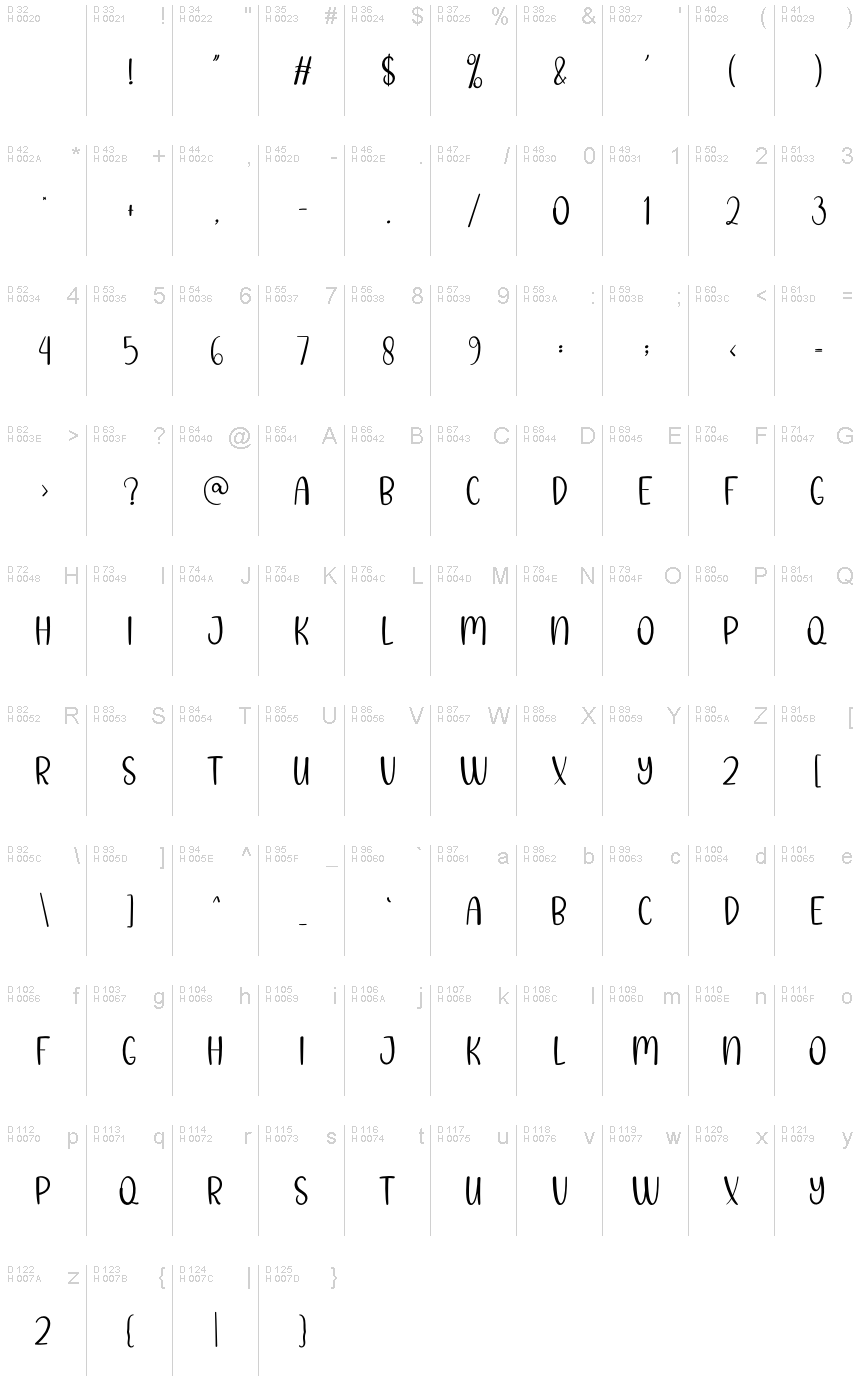
Palm Sugar
Palm Sugar, designed by Scratchones, is a handwritten font that exudes a casual and approachable charm. Its semi-light weight lends an airy, effortless quality to the text, while the semi-condensed width ensures readability without sacrificing the personal touch that is characteristic of handwritten styles.
The flowing lines and organic form of Palm Sugar make it an excellent choice for projects seeking a handcrafted feel. Whether it's for branding, invitations, or editorial design, this font adds a personal and inviting touch that can enhance the overall aesthetic appeal of creative endeavors. Its legibility and style make it versatile for both print and digital mediums.